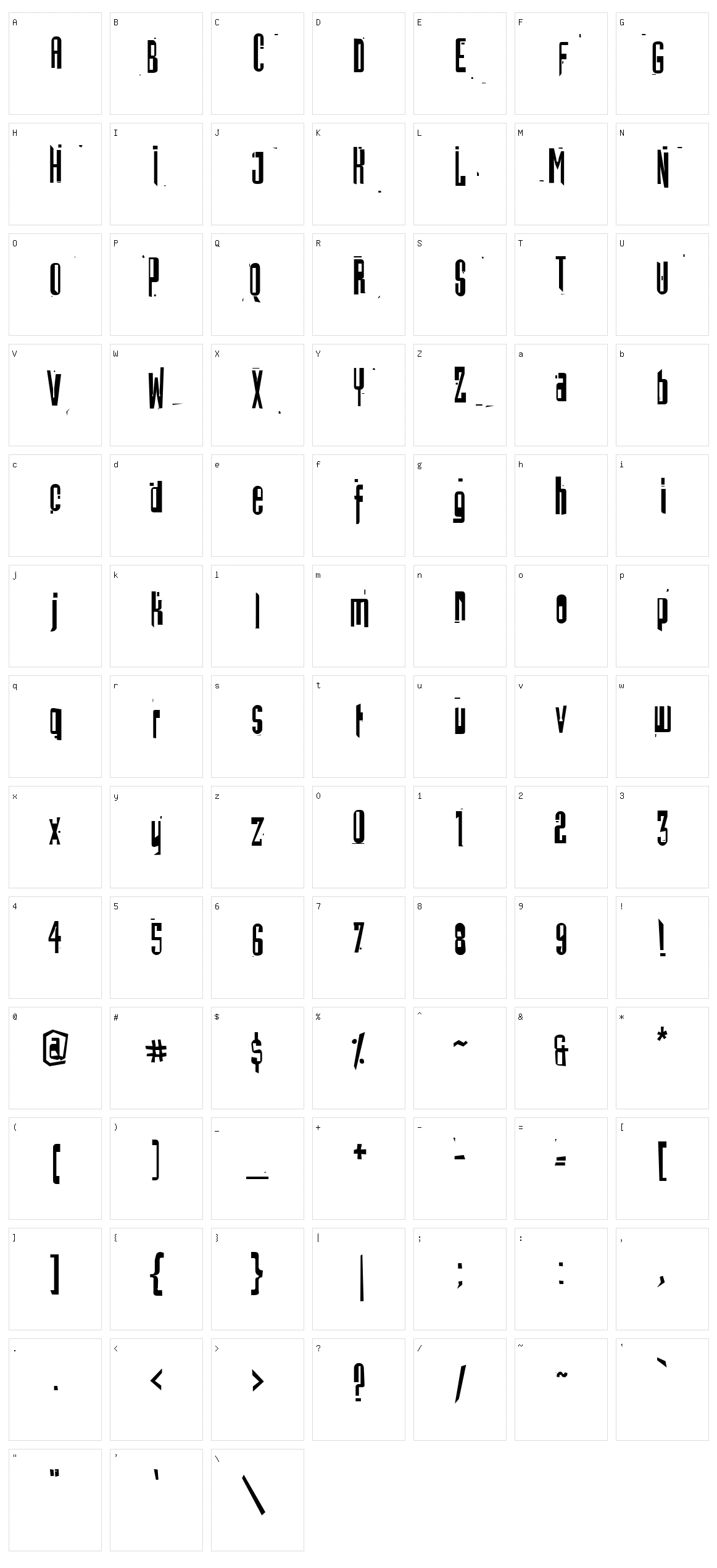
FDF vol. 1 is 8 funky, strange, spaced out, cool headline typefaces, wich will make your designs
look VERY trendy. The fonts have been made with a lot more care than the average shareware font.
All fonts (except the most complex ones) includes all special and international characters.
Batmos - A tall, noisy, Jazzy, HipHop looking font.